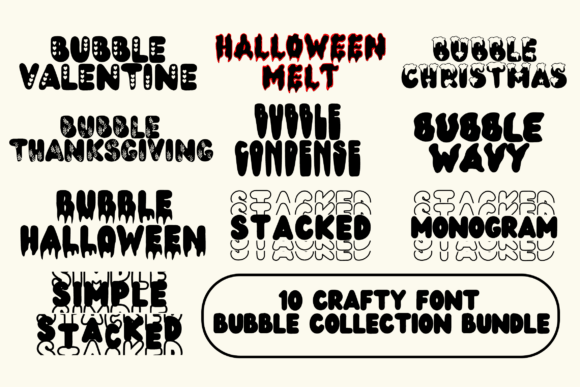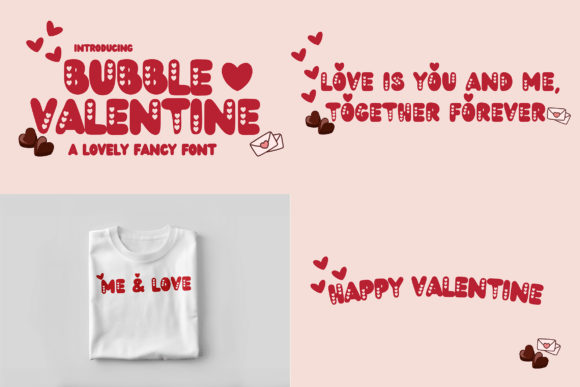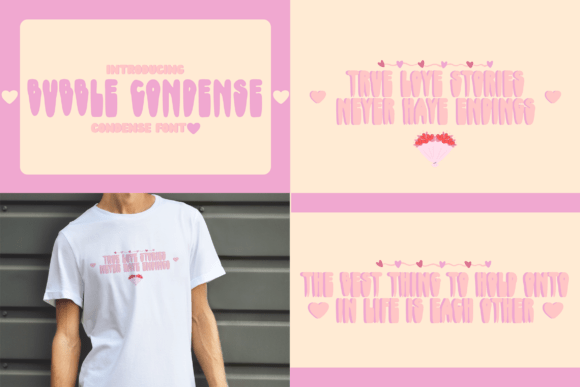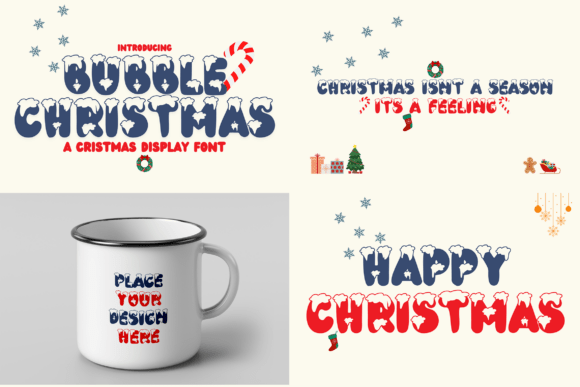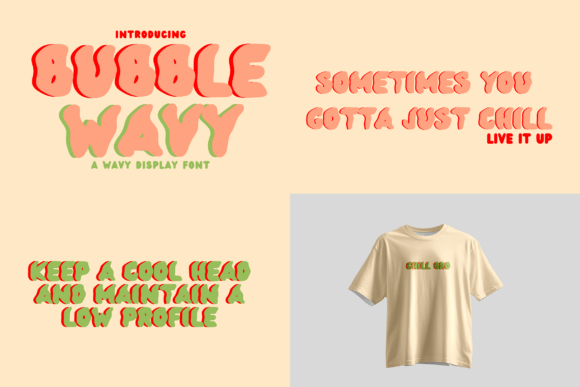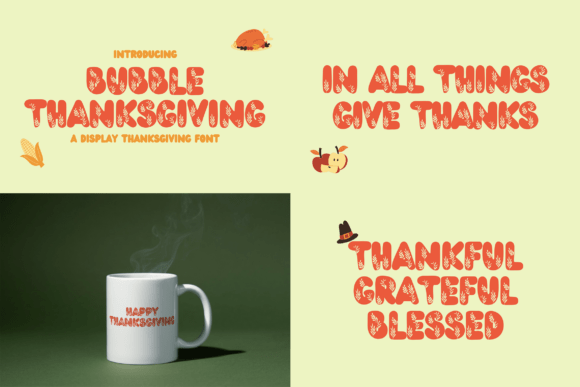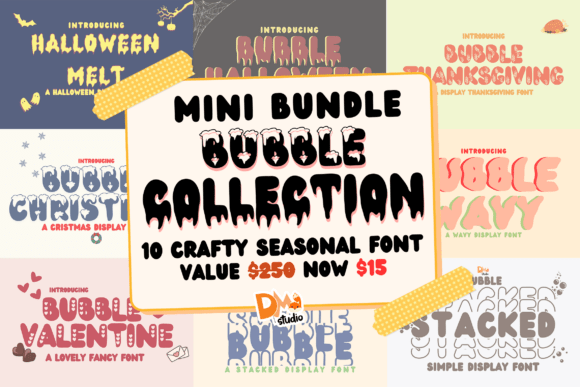
Bubble Collection Font: Add a Touch of Whimsy to Your Designs
Are you tired of using the same old fonts in your designs? Look no further than the Bubble Collection Font, a set of 10 fun and creative fonts that are sure to bring joy and personality to your projects. This mini bundle is perfect for designers and crafters who want to add a touch of whimsy to their holiday designs, greeting cards, posters, and more.
Introducing the Bubble Collection Mini Bundle
The Bubble Collection Mini Bundle is a curated set of 10 crafty seasonal fonts that are inspired by different festive themes. Each font is unique and playful, making it perfect for a variety of design projects. Whether you’re creating Halloween invitations, Christmas cards, or Valentine’s Day posters, this font collection has got you covered.
What’s Included in the Bubble Collection Font?
The Bubble Collection Font includes 10 fun and creative fonts, each with its own unique character. Here’s a breakdown of what you can expect:
- Halloween Melt – A spooky, drippy Halloween font that’s perfect for creating eerie invitations and posters.
- Bubble Halloween – A fun and eerie font with a melted effect that’s great for creating Halloween-themed designs.
- Bubble Thanksgiving – A warm and festive Thanksgiving-inspired font that’s perfect for creating holiday cards and posters.
- Bubble Christmas – A cute and bubbly Christmas display font that’s great for creating festive holiday designs.
- Bubble Valentine – A romantic and playful font for Valentine’s Day that’s perfect for creating sweet and sentimental designs.
- Bubble Wavy – A wavy and fun display font that’s great for adding a touch of whimsy to your designs.
- Bubble Stacked – A unique layered bubble-style font that’s perfect for creating eye-catching designs.
- Bubble Stacked Monogram – A unique Hollowe Stacked bubble style font that’s great for creating custom monograms.
- Simple Bubble Stacked – A simple Zig Zag Stacked Font that’s perfect for creating fun and playful designs.
- Bubble Condese – A unique Condense Style Font that’s great for creating bold and eye-catching designs.
Perfect for Holiday Designs and More
The Bubble Collection Font is perfect for a variety of design projects, including:
- 🎃 Halloween Invitations and posters
- 🎄 Christmas and Holiday cards and designs
- 💕 Valentine’s Day posters and cards
Why Choose the Bubble Collection Font?
There are many reasons why the Bubble Collection Font is a great choice for designers and crafters. Here are just a few:
- Unique and Playful Fonts – Each font in the Bubble Collection is unique and playful, making it perfect for adding a touch of whimsy to your designs.
- Festive Themes – The fonts are inspired by different festive themes, making them perfect for holiday designs and more.
Get Ready to Add Some Fun to Your Designs!
If you’re looking for a way to add some fun and personality to your designs, look no further than the Bubble Collection Font. With its unique and playful fonts, festive themes, and ease of use, this font collection is perfect for designers and crafters of all levels. So why wait? Get your hands on the Bubble Collection Font today and start creating!